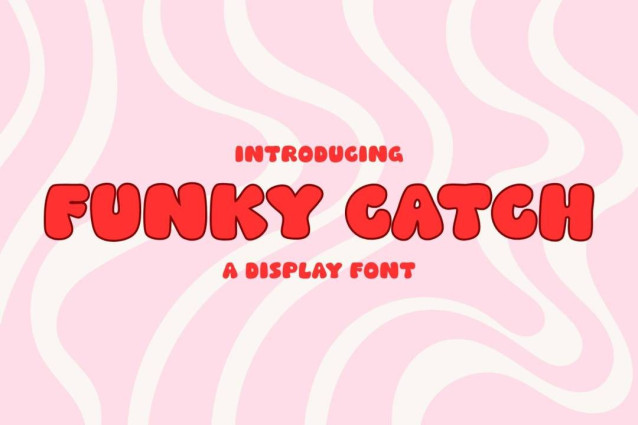
Funky Catch Font
Funky Catch Font is a simple and modern display font suitable for quotes, logos, headings, titles, and many more. Use it on any of your creative projects, and your designs will become outstanding!